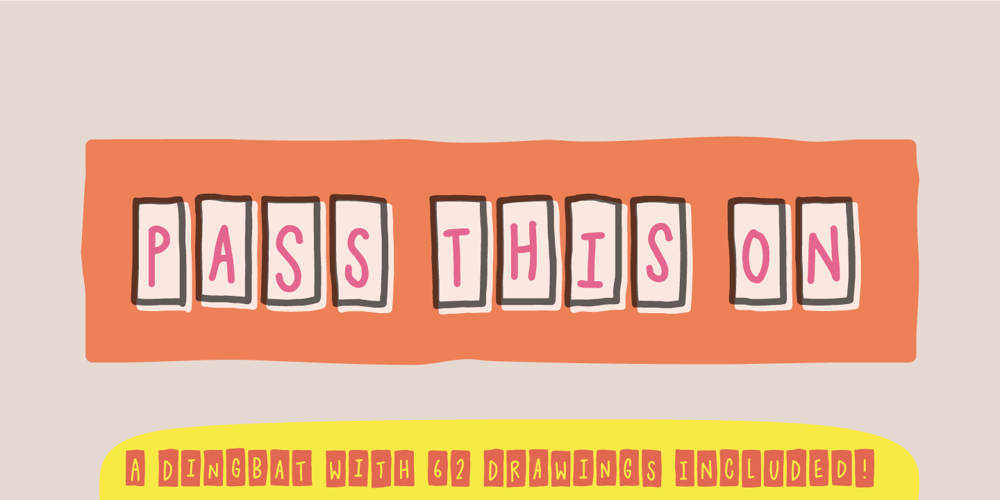
Pass This On
Pass This On font
Pass This On Font Family was designed by Jakob Fischer and published by PizzaDude.dk. Pass This On contains 6 styles and family package options. Pass This On comes with 5 different layers to make cool effects, and every layer has 5 different versions of each letter that automatically cycles as you type. Besides that, Pass This On comes with a dingbat with 62 note-like drawings to complimate whatever you wrote with the font!